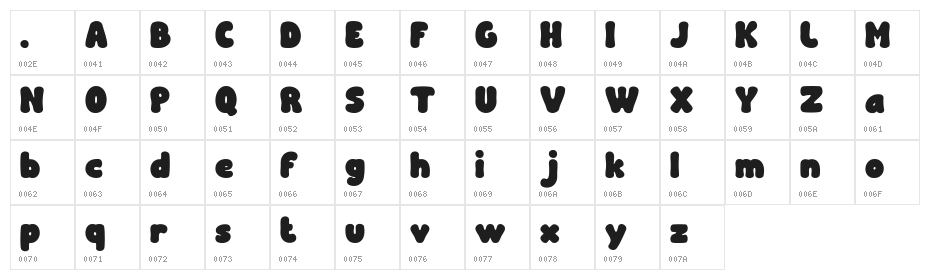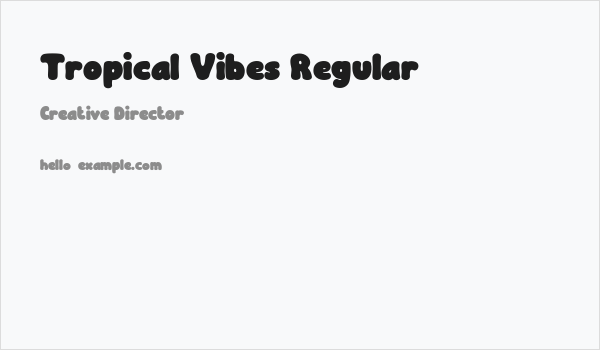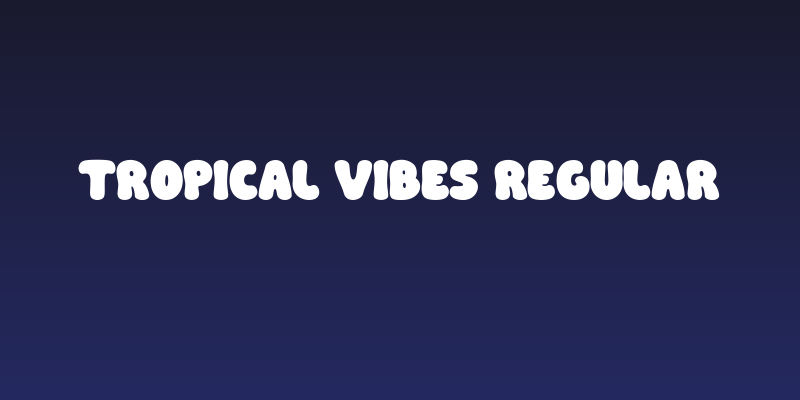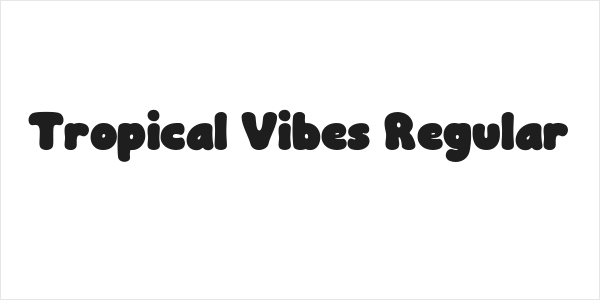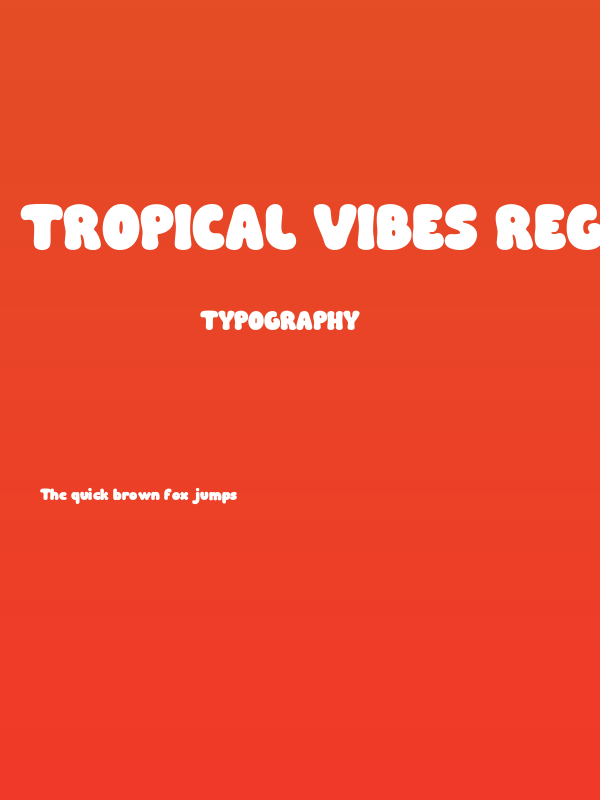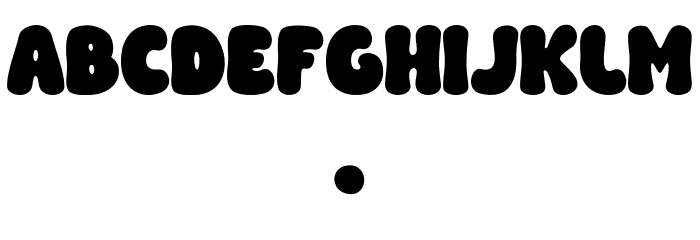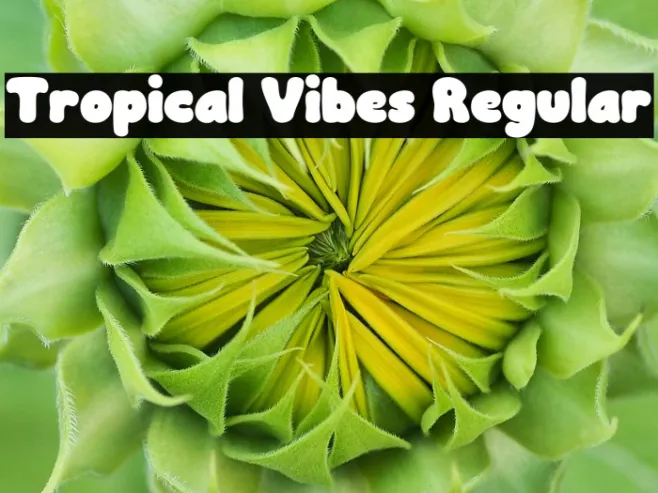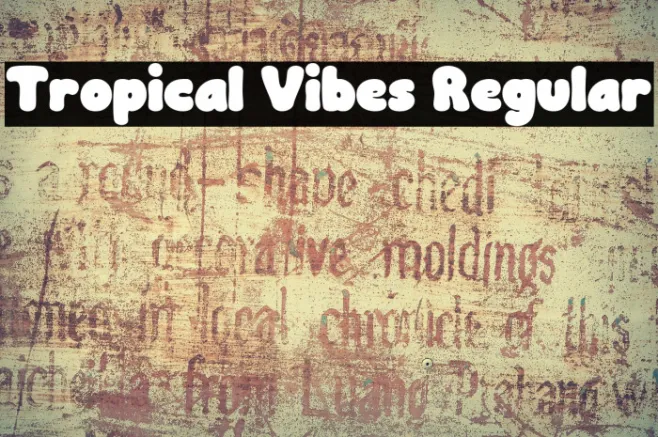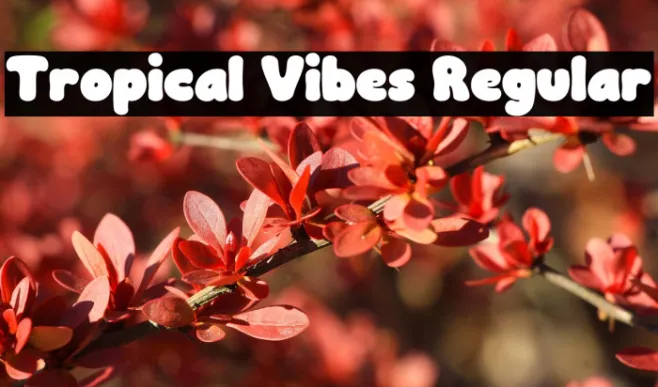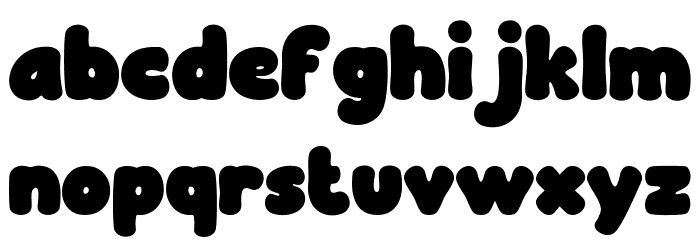
Tropical Vibes Regular Font
Tropical Vibes Regular Description
This font features a playful and bold design with rounded, bubbly characters that convey a sense of fun and whimsy. The letters are thick and have a uniform stroke width, giving them a strong presence. The rounded edges and lack of sharp angles contribute to a friendly and approachable appearance. The font maintains a consistent weight throughout, with each character exhibiting a similar height and width, creating a harmonious and balanced look. Its unique style makes it suitable for projects that aim to capture attention and evoke a sense of joy and creativity.
| Proposed Projects | Ideal for children's books, party invitations, playful branding, and creative posters. |